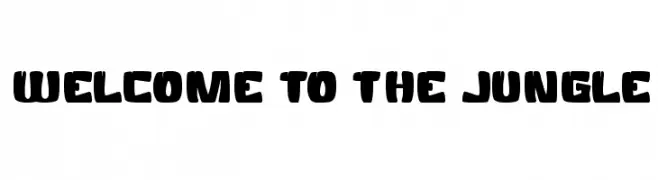
A bold, modern font with geometric and angular characteristics.
A bold, decorative font with rounded, water droplet-like shapes.
A bold, geometric font with modern, angular design elements.
A bold, modern font with geometric and futuristic elements.
A bold, playful font with thick, rounded strokes and a whimsical style.
A bold, playful font with rounded, overlapping strokes and a bubble-like appearance.
A modern, rounded sans-serif font with uniform stroke width and balanced proportions.
A bold, rounded font with a playful and modern aesthetic.
A playful, dot-connected font with a modern, circuit-like design.
A bold, rounded, and playful font with a chunky appearance.